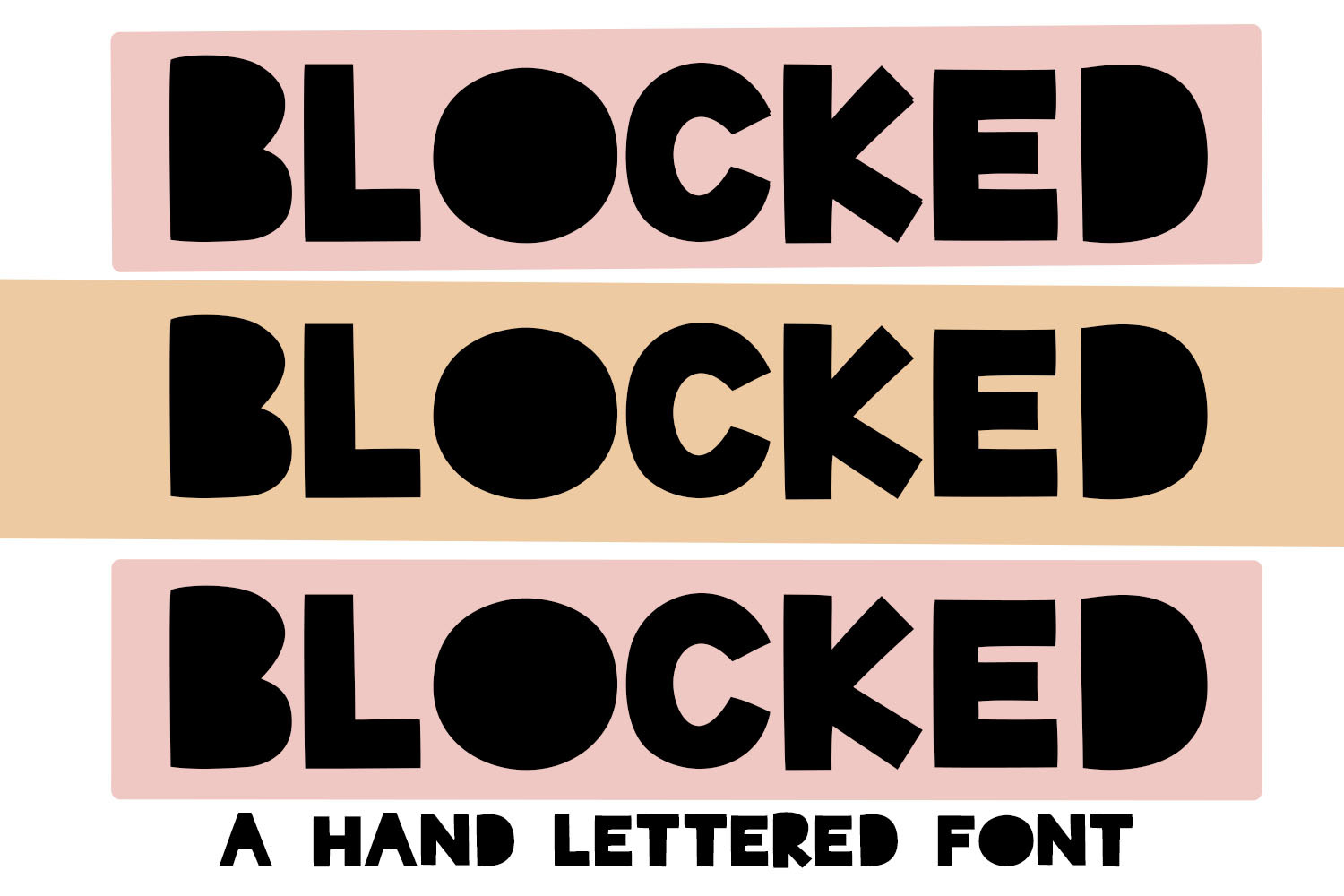
BLOCKED A Hand Lettered Font
A boldly fun display font with both a fun and filled in look! This font is awesome for crafting projects, stickers, invitations, social media, branding, logo, and web design, just to name a few!